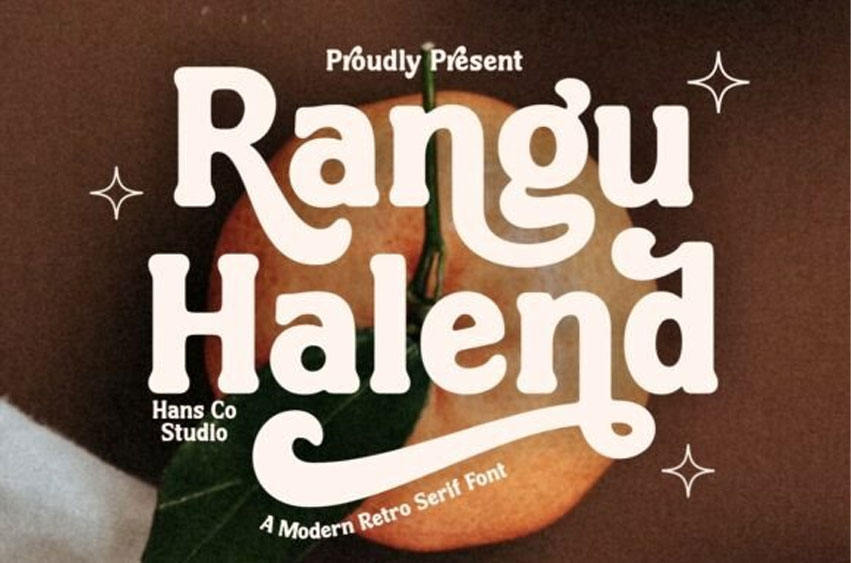
Rangu Halend Font
Rangu Halend Font is a bold and simple retro serif font that brings nostalgic charm with a modern twist. Designed with clean lines and vintage character, it also includes stylish swash alternates to give your design projects an extra layer of flair and personality. Whether you’re aiming for a classic or playful aesthetic, this display font adds that perfect retro touch to any creative idea.
The font comes fully equipped with uppercase and lowercase letters, numbers, punctuation, and multilingual support—making it versatile and ready for any use. Ideal for logotypes, stickers, packaging, Cricut projects, headlines, brand identities, posters, magazines, books, social media content (like YouTube thumbnails or Instagram graphics), websites, and much more, Rangu Halend effortlessly elevates your design with timeless appeal.